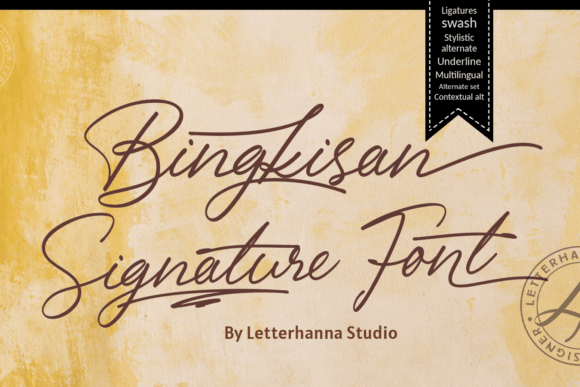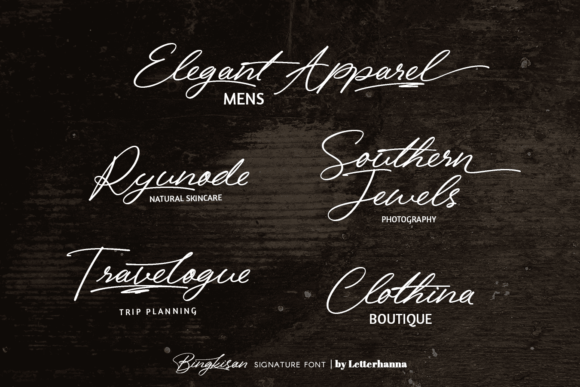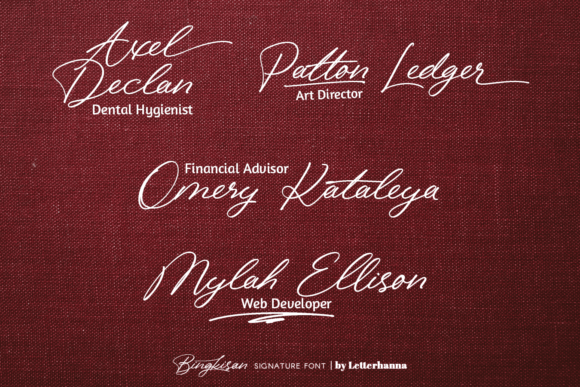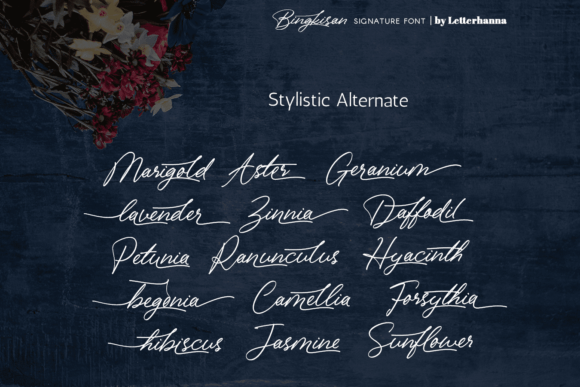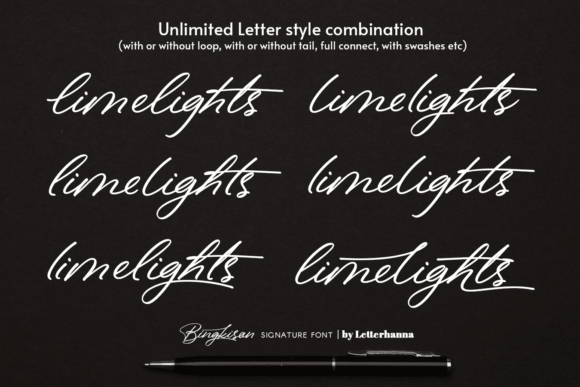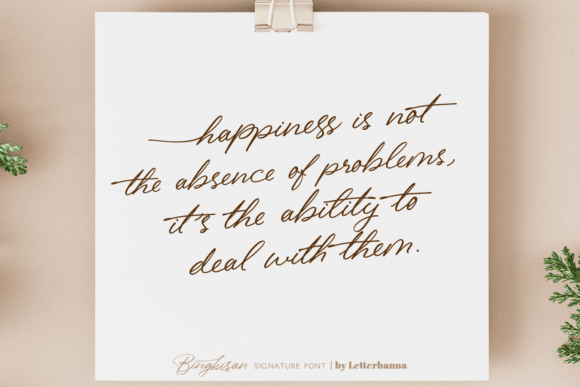
Bingkisan Font: Elevate Your Designs with Elegance and Sophistication
In the world of typography, a font can make or break a design. For designers and crafters seeking to add a touch of elegance and sophistication to their work, the Bingkisan Font is an exceptional choice. This stylish and incredibly elegant script font is perfect for a variety of design projects, from wedding invitations and thank you cards to quotes, greeting cards, logos, and business cards.
What Makes Bingkisan Font Stand Out?
Bingkisan Font boasts a unique and beautiful script style that instantly elevates any design. Its elegant and refined appearance makes it an ideal choice for designers looking to add a touch of sophistication to their work. Whether you’re creating wedding invitations, branding materials, or social media graphics, Bingkisan Font is sure to impress.
Bingkisan Font is incredibly versatile and can be used for a wide range of design projects. Some of the most popular uses for this font include:
- Wedding Invitations: Add a touch of elegance and sophistication to your wedding invitations with Bingkisan Font. Its beautiful script style and refined appearance make it perfect for formal wedding designs.
- Thank You Cards: Express your gratitude in style with Bingkisan Font. Its elegant appearance makes it perfect for thank you cards, gift tags, and other correspondence.
- Quotes and Typography: Bingkisan Font is ideal for creating stunning typography quotes, posters, and social media graphics. Its unique and beautiful script style adds a touch of sophistication to any quote or message.
- Greeting Cards: Create beautiful and elegant greeting cards for any occasion with Bingkisan Font. Its refined appearance makes it perfect for formal and informal designs.
- Logos and Branding: Use Bingkisan Font to create a unique and memorable logo for your business or brand. Its elegant and sophisticated appearance makes it perfect for high-end branding and design.
- Business Cards: Elevate your business cards with Bingkisan Font. Its refined appearance and elegant script style make it perfect for professionals and businesses seeking to make a lasting impression.
Why Choose Bingkisan Font?
There are many script fonts available, but Bingkisan Font stands out from the rest. Here are just a few reasons why designers and crafters choose Bingkisan Font:
- Elegant and Sophisticated: Bingkisan Font boasts a unique and beautiful script style that adds a touch of elegance and sophistication to any design.
- Versatile: Bingkisan Font is perfect for a wide range of design projects, from wedding invitations and branding materials to quotes and greeting cards.
In conclusion, Bingkisan Font is an exceptional choice for designers and crafters seeking to add a touch of elegance and sophistication to their work. Its unique and beautiful script style, PUA encoding, and versatility make it perfect for a wide range of design projects. Whether you’re creating wedding invitations, branding materials, or social media graphics, Bingkisan Font is sure to impress. So why wait? Download Bingkisan Font today and elevate your designs with elegance and sophistication.